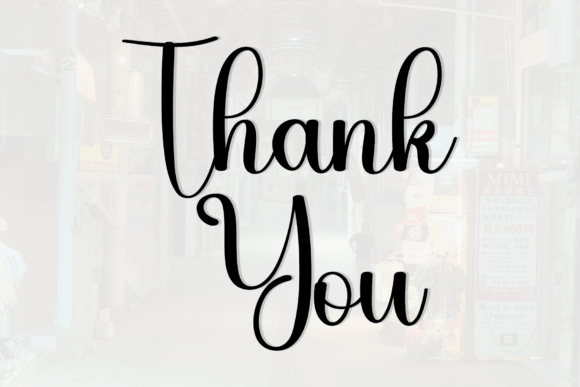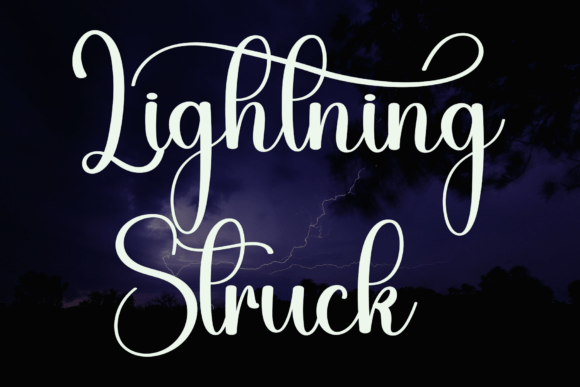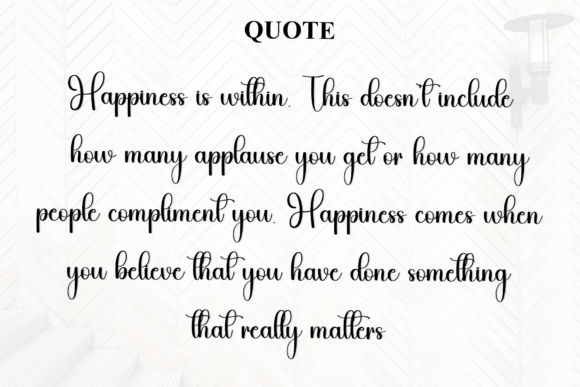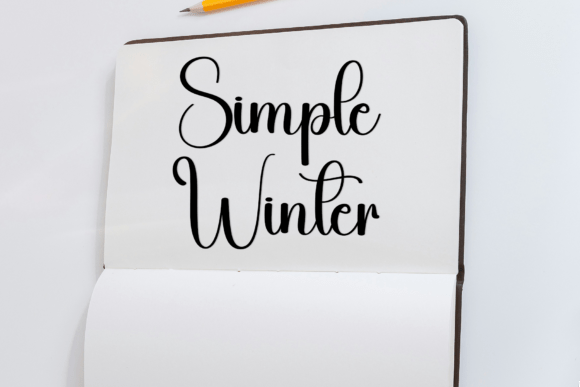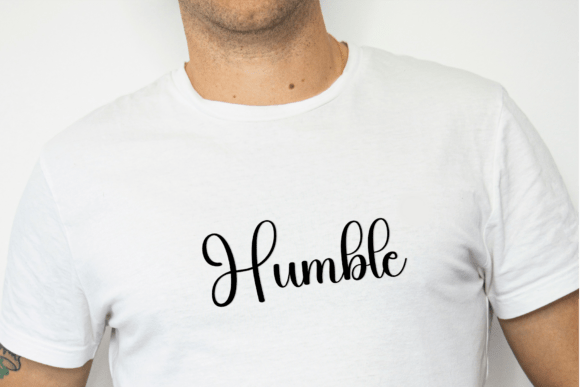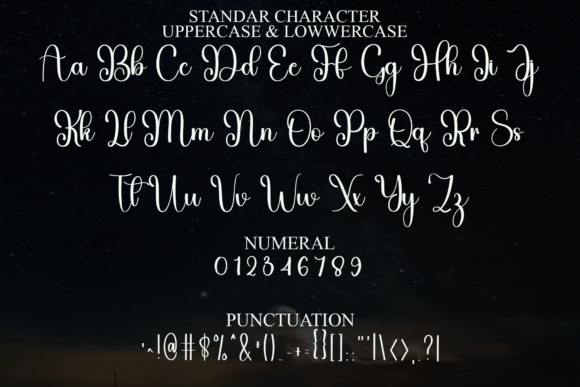
Introduction to Lightning Handmade Font Font
Fonts play a crucial role in design, and the Lightning Handmade Font font is a typeface that brings both character and versatility to any project. Whether you’re working on a branding project, a website, or a print design, the Lightning Handmade Font font offers a unique style that can elevate your work.
Lightning Handmade is a stylish handwritten script font that exudes elegance and charm with its fluid, graceful strokes.
Perfect for branding, invitations, and stationery, it adds a personal and sophisticated touch The smooth curves and natural flow create a timeless, refined look for any design.
Key Features of Lightning Handmade Font Font
Why Choose Lightning Handmade Font Font?
The Lightning Handmade Font font is more than just a typeface – it’s a design tool that helps you communicate your message with style and clarity. Its unique character set and versatile design make it suitable for a wide range of applications, from elegant invitations to bold headlines.
With its carefully crafted letterforms and balanced proportions, the Lightning Handmade Font font ensures readability and visual appeal across all mediums.
What makes Lightning Handmade Font font special?
The Lightning Handmade Font font stands out with its unique design, exceptional readability, and versatility across various design applications.